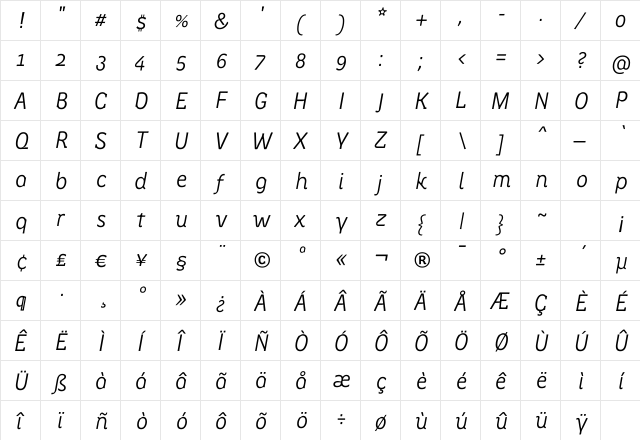
SpotkaRegular Italic Regular
Design Context for SpotkaRegular Italic Typeface
SpotkaRegular Italic offers clean, dependable letterforms without strong stylistic allegiance, making it a practical choice for designers who need flexibility. The slanted form adds forward momentum and visual energy.
Pro Tip: Use SpotkaRegular Italic for emphasis, pull quotes, and subheadings where its slanted energy can add rhythm to the layout.